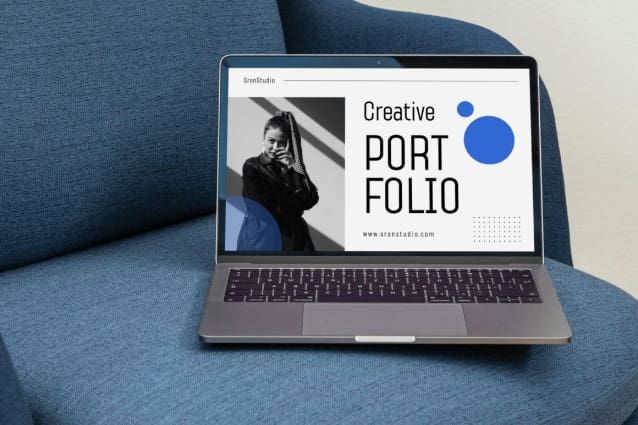
Kagoda Font
Kagoda Font, a modern sans serif font that exudes clean sophistication. With a semi-condensed design, “Kagoda” is perfect for any project needing a sleek, contemporary touch. Available in four versatile styles—Regular, Italic, Bold, and Bold Italic—this font provides the flexibility you need to elevate your designs, whether it’s for branding, editorial work, or digital content. Enhance your creativity with the refined elegance of “Kagoda.”